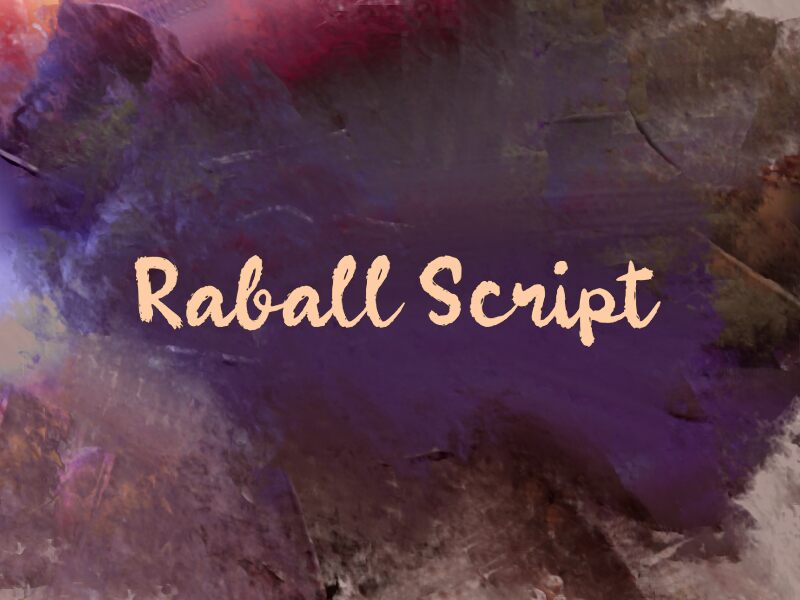
Raball Script font designed by wep is a free handwritten font with casual edges and connections characterized by downward strokes that showcase the movement and skill of the designer. It holds a personalized touch and even a joyful effect that can be transferred to logotypes and packaging designs for skincare products. So use Raball at your personal convenience.
With the modern addition of the font and its bold presence, you can decorate particular signs for coffee shops and bars, and create dashing invitations, and fun merchandise designs that can be used by schools for their events and organizations.
Raball Script is a stunning free font that combines elegance with a contemporary touch. This beautifully crafted script typeface is perfect for any project, whether you're designing invitations, branding, or promotional materials.
With its unique character and flowing lines, Raball Script will add a personal and artistic flair to your designs. It offers a wide range of stylistic variations, allowing you to express creativity while keeping your typography sophisticated.